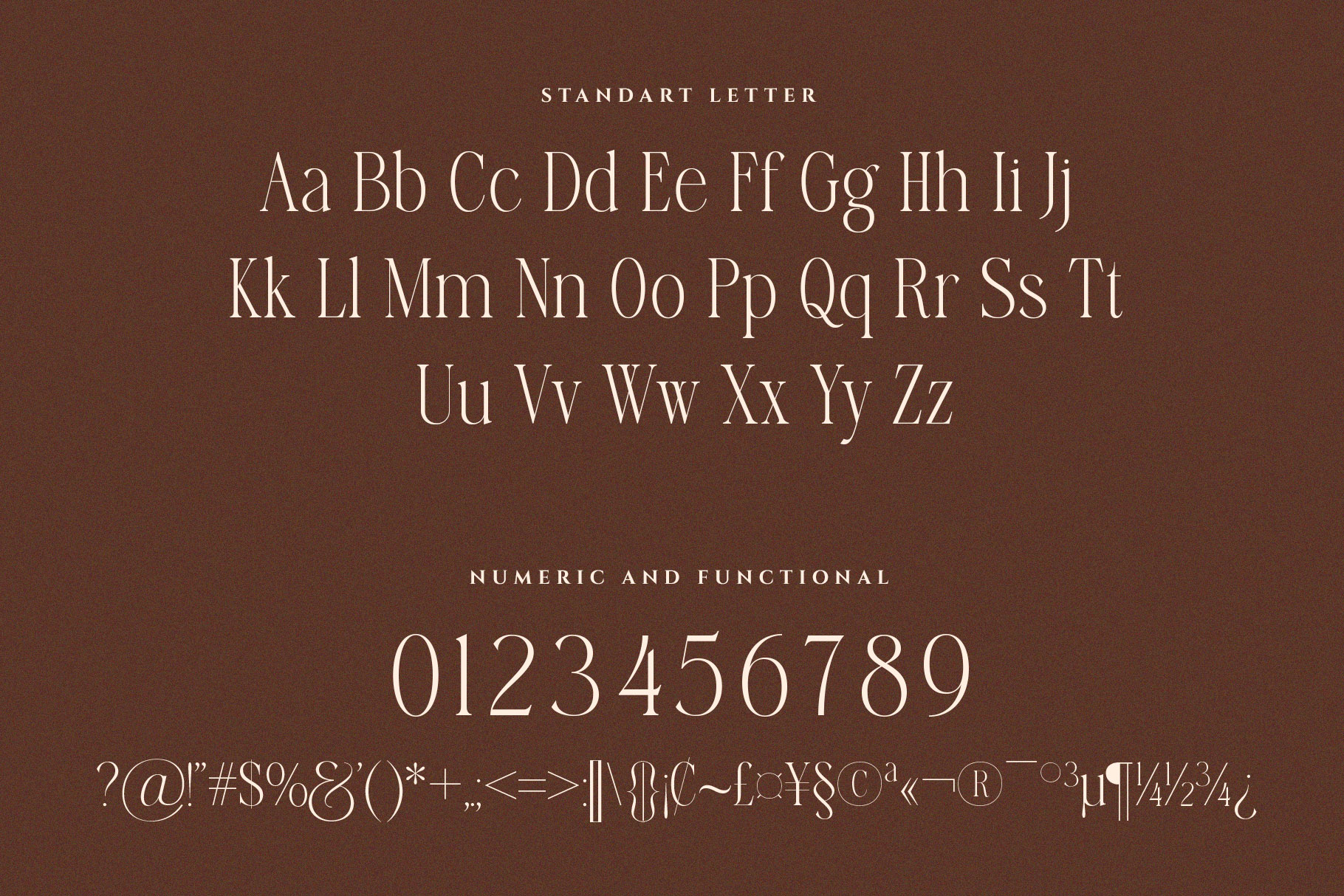
Darina is a modern display serif font that embraces elegance and grace. Its delicate curves and refined details create a sense of sophistication and femininity. Darina brings a touch of charm and sophistication to branding, editorial designs, and more. We keep this font looks fashionable, elegant, luxury, premium, modern, catchy and easy to use. With its versatility and contemporary appeal. We love how ligature DA and HA work very premium and elegant.
Darina is a beautiful choice for any creative endeavor, creating elegant, chic, lifestyle design such as logos, title, cover, branding, display and magazine, and more. Now you have more choice when using Darina for typography.